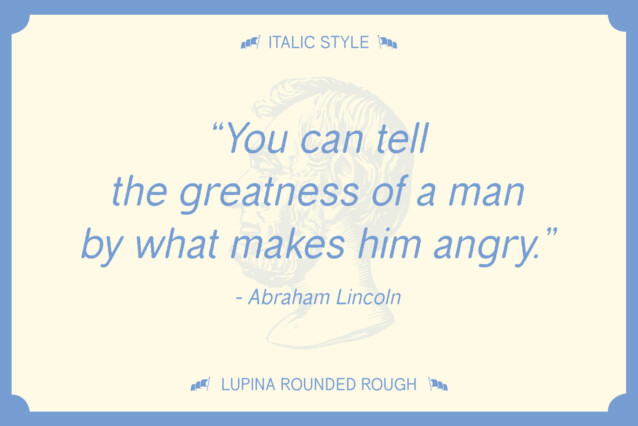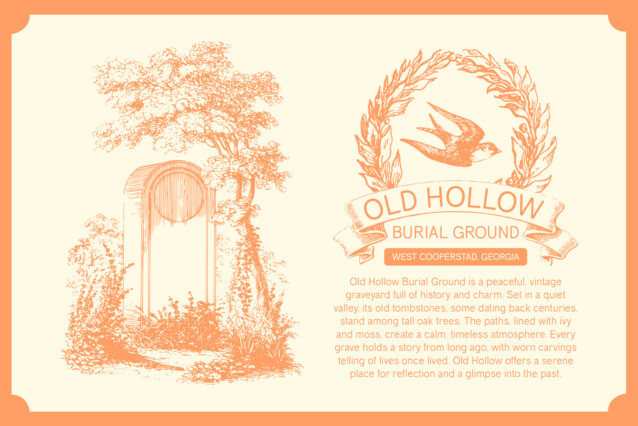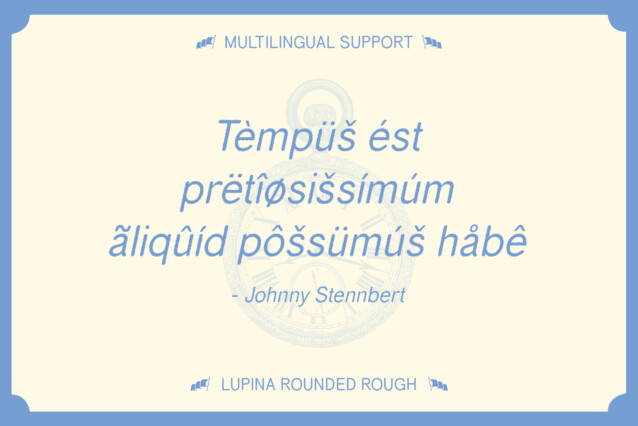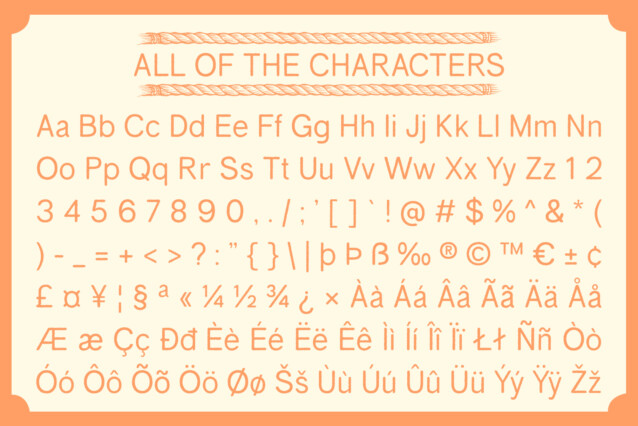
Lupina Rouded Rough Font
Lupina Rouded Rough Font is a modern sans-serif font that seamlessly blends grotesque and rounded shapes with a distinctive rough effect. This unique combination creates a versatile typeface that balances strong readability and functionality with a touch of organic texture. The grotesque design provides clear and efficient letterforms, while the rounded edges lend a friendly and approachable feel. The rough effect introduces a raw, imperfect texture that adds a layer of bold character and dynamic energy.